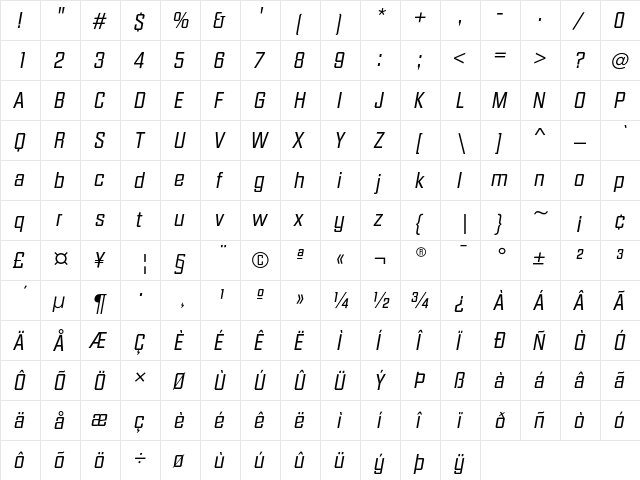
DiamanteEF RegularItalic
Design Context for DiamanteEF Typeface
DiamanteEF is a composed and adaptable typeface that performs quietly and consistently across a wide range of design contexts. The dynamic lean of this cut emphasises speed and emphasis in any layout.
Pro Tip: Use DiamanteEF for emphasis, pull quotes, and subheadings where its slanted energy can add rhythm to the layout.